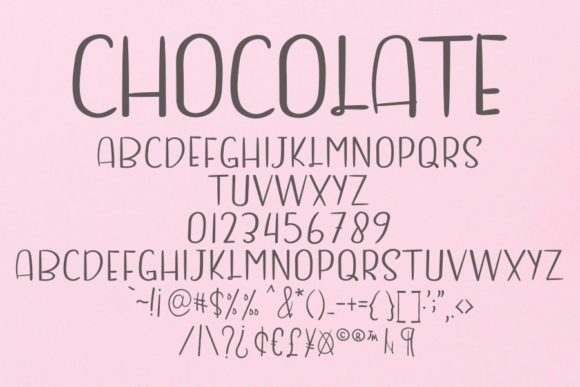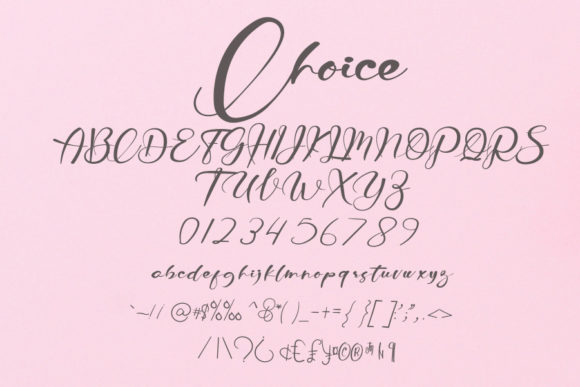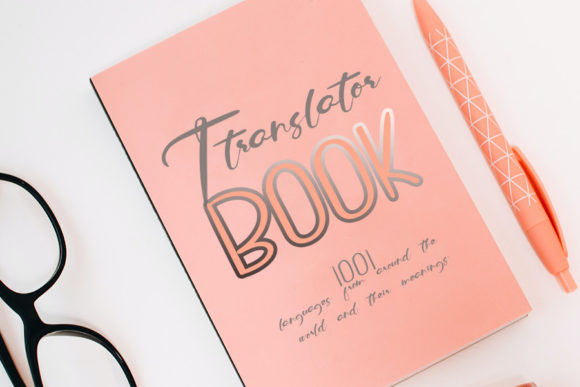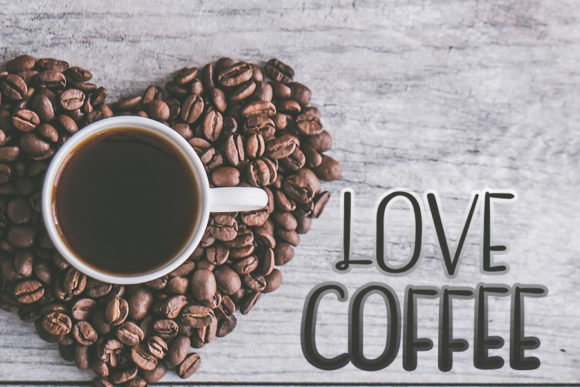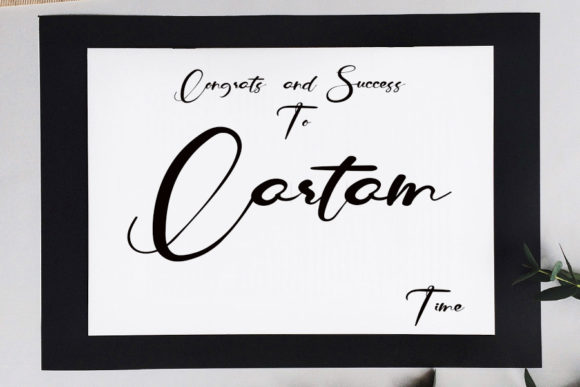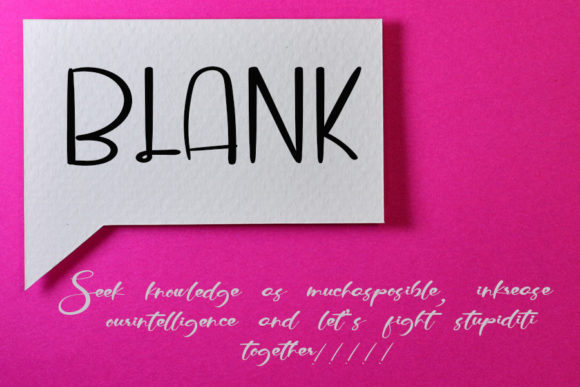
Introduction to Chocolate Choice Font
Have you ever found yourself staring at a blank canvas, feeling stuck and unsure of where to start your next creative project? For many designers, this is a familiar feeling – the blank page, the empty screen, the endless possibilities. But what if you had the perfect design resource to help spark your creativity? Enter the Chocolate Choice Font, a friendly handwritten font that’s sure to become a true favorite.
With its classy calligraphic influences and contemporary feel, the Chocolate Choice Font is the perfect addition to any design project. Whether you’re working on a free download or a high-end commercial campaign, this font is sure to add a touch of warmth and personality to your work. And with its transparent background, you can easily layer it over any image or design element to create a unique and eye-catching look.
Key Features of Chocolate Choice Font
- High-quality design resource ideal for creative projects, such as logos, graphics, and typography.
- Unique, hand-drawn design with a transparent background, allowing for easy layering and customization in your design projects.
- Features a range of styles and weights, including bold, regular, and light, to suit your creative project’s needs.
- Designed to work well with a variety of colors and backgrounds, making it a versatile design resource for any creative project.
Honest Review: Chocolate Choice Font
What works well: ✨ The Chocolate Choice Font is incredibly versatile, making it perfect for a wide range of creative projects. Its elegant and sophisticated design style lends itself well to premium branding and luxury packaging. The font also comes with a transparent background, which is a huge plus for designers who want to customize their designs without any distractions.
- High-quality design: The font is expertly crafted with attention to detail, ensuring a professional finish for any design project.
Any limitations: ⚠️ While the Chocolate Choice Font is a great addition to any designer’s toolkit, it may not be suitable for all design projects. The font’s elegant style may not be the best fit for more playful or edgy designs.